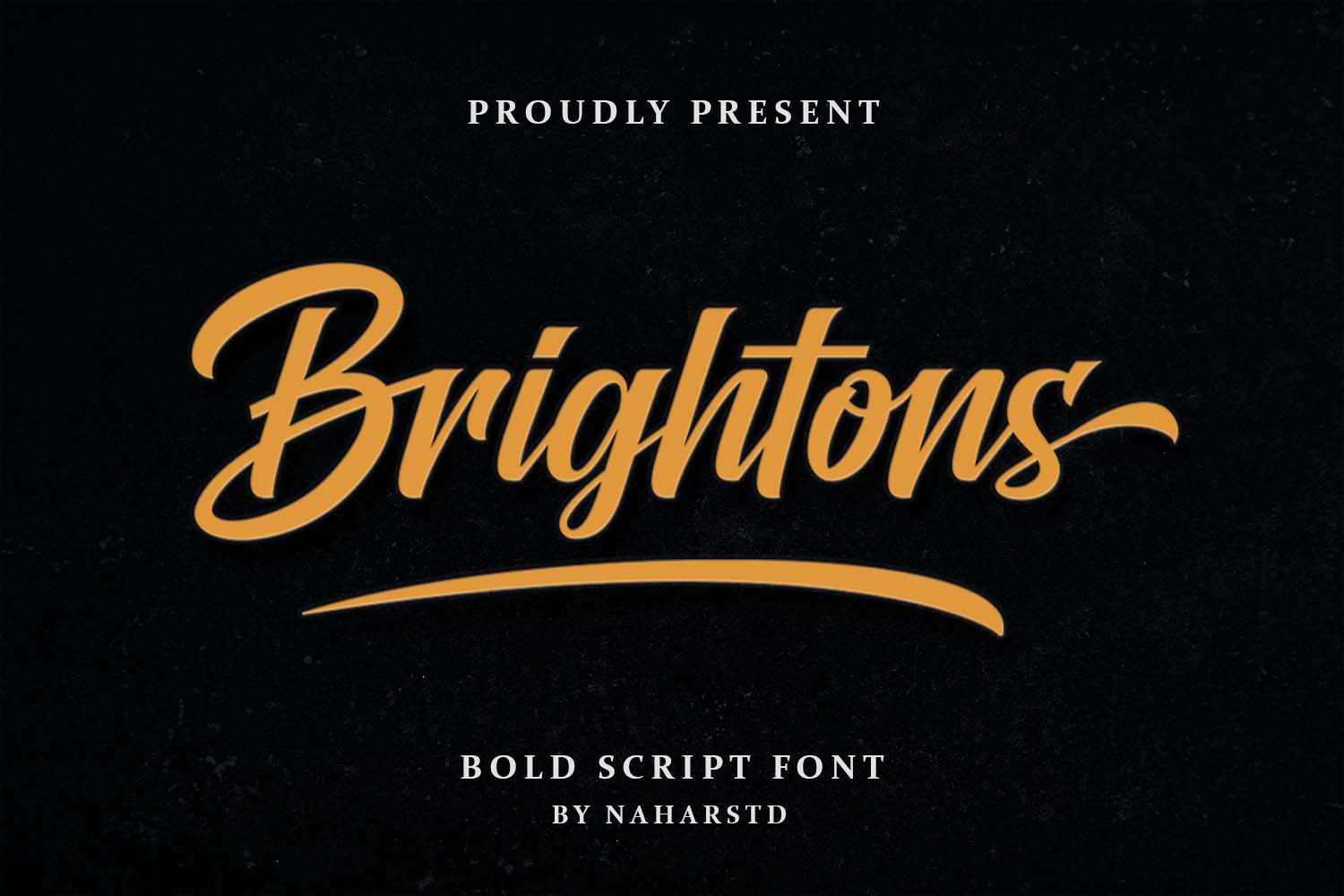
Brightons - Bold Cursive Font
Brightons is bold style script font with authentic and casual feels. It will be perfectly used for Branding, Logo Design, Lettering, Logotype, Clothing, Poster, magazine, packaging, posters, shopping bags, t-shirts, book covers, photography, special events and other design project.